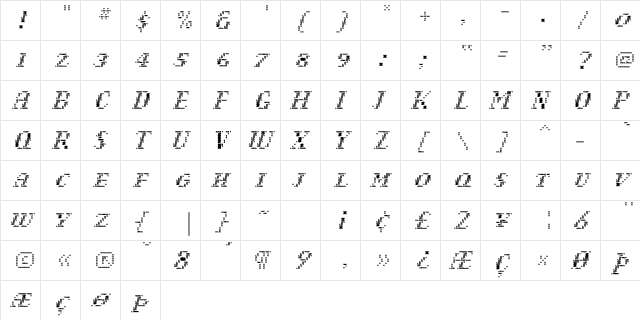
NarlyLight Light
Design Context for NarlyLight Typeface
NarlyLight is a composed and adaptable typeface that performs quietly and consistently across a wide range of design contexts. The delicate stroke weight brings airiness and refinement to layouts.